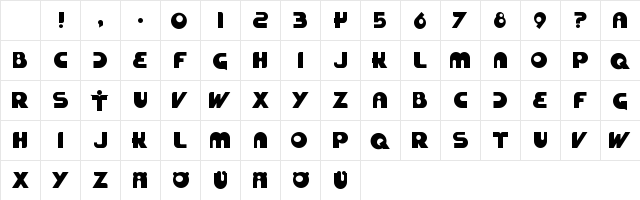
Zuckerbrot is a composed and adaptable typeface that performs quietly and consistently across a wide range of design contexts.
Pro Tip: Use Zuckerbrot in both headline and body roles to test its range before committing to a single application.